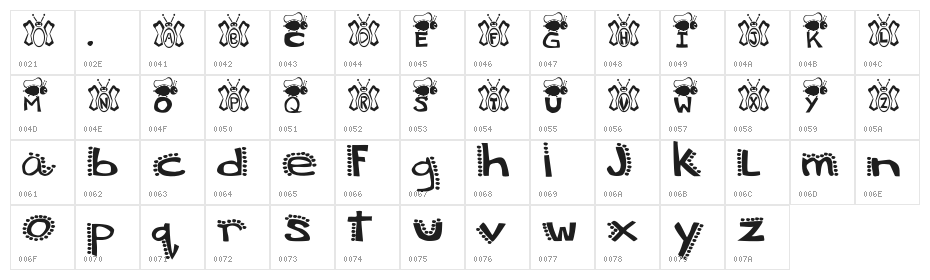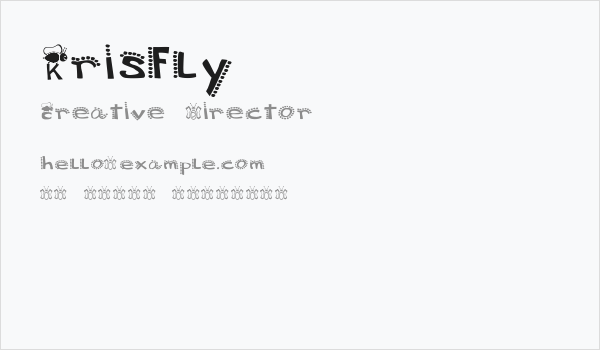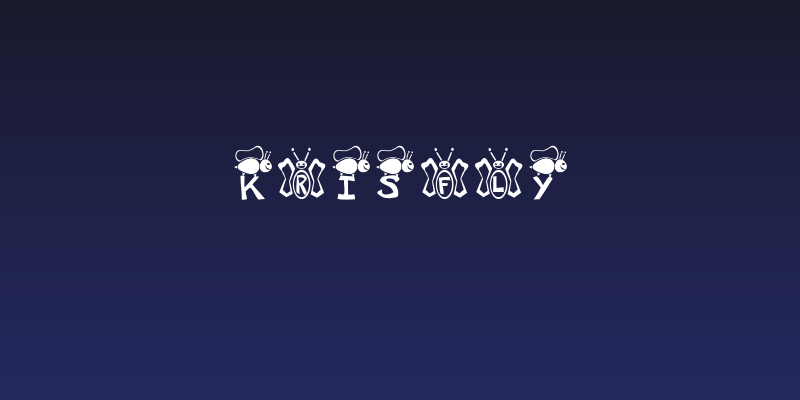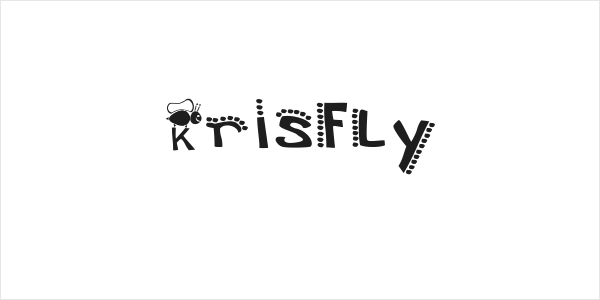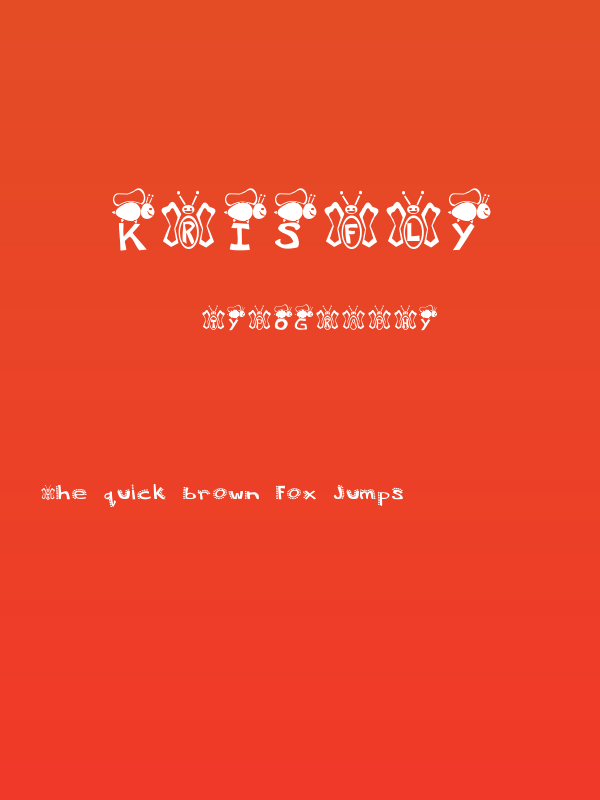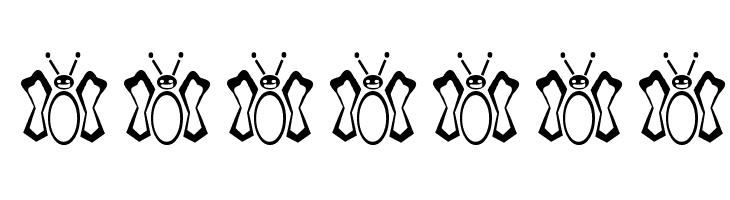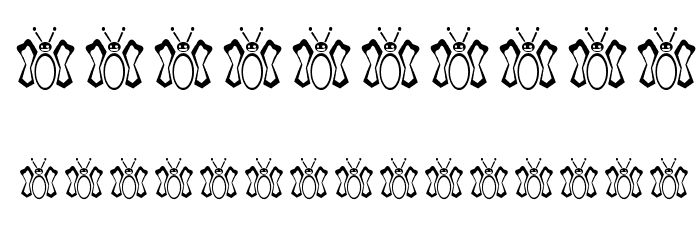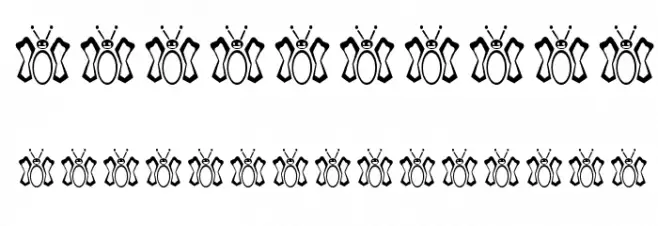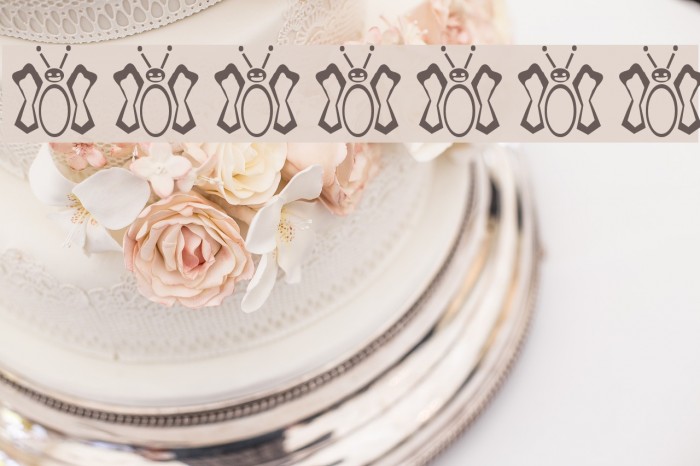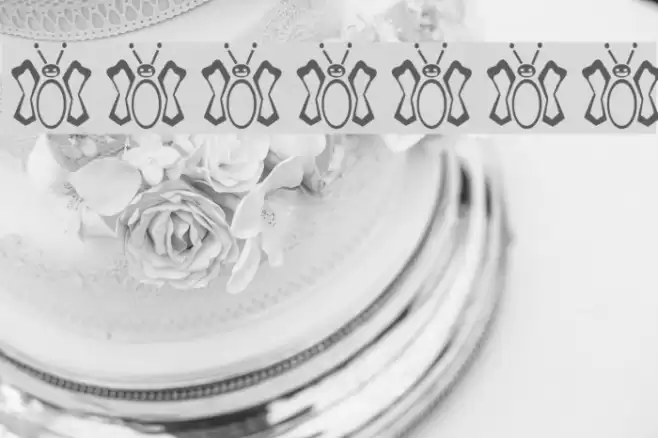
Krisfly Font
| 全体的なスタイル | Decorative, Playful, Modern |
| 用途 | Logos, Headlines, Decorative elements |
| おすすめプロジェクト | Children’s books, themed party invitations, branding for playful or nature-related products, decorative borders, posters. |